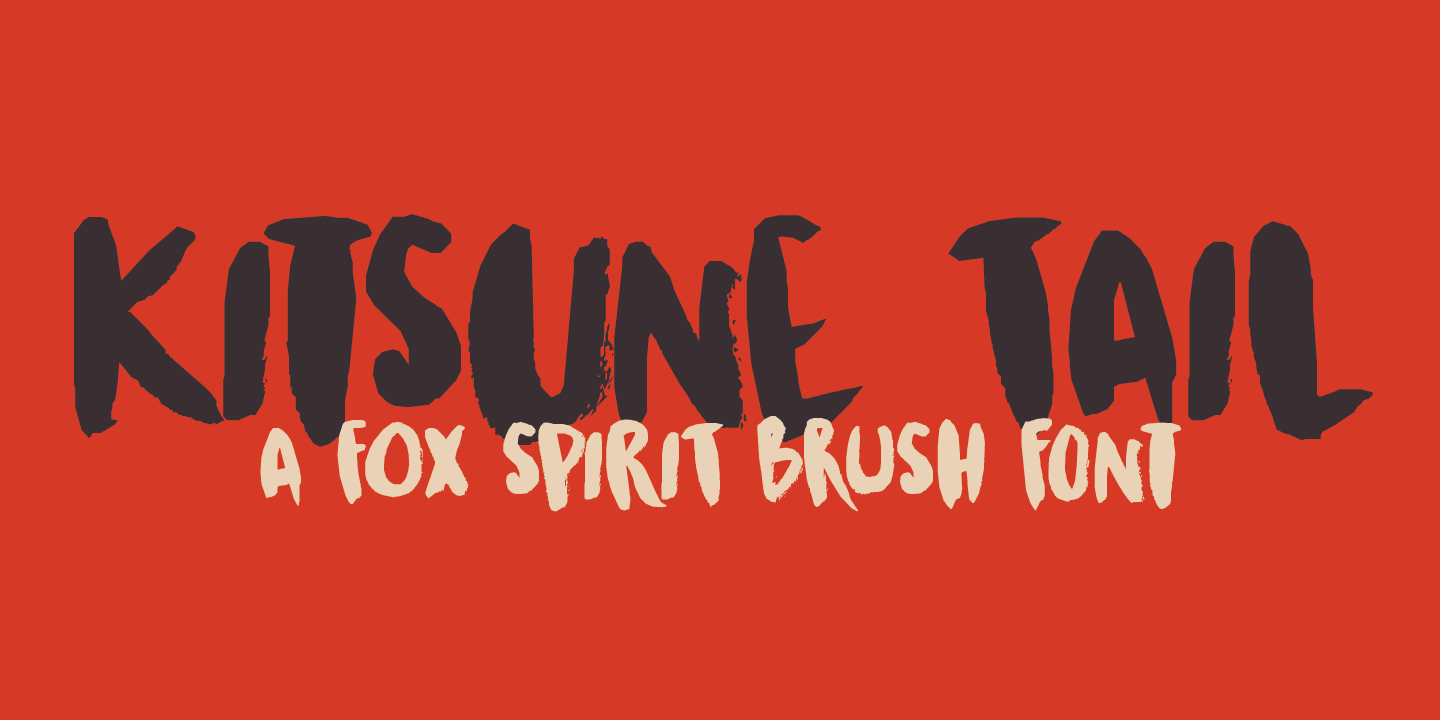
This versatile font excels in various design applications including anime posters, gaming logos, manga covers, fantasy book titles, mystical branding projects, oriental restaurant menus, tattoo designs, and spiritual artwork. Its unique character makes it perfect for projects that require an authentic Japanese-inspired aesthetic with modern typography appeal.
Kitsune Tail Font is exciting because it seamlessly blends traditional Japanese calligraphy elements with contemporary design sensibilities. The font captures the essence of fox spirits from Japanese folklore, featuring flowing strokes that mimic the graceful movement of a kitsune's tail. Each letter carries mystical energy while maintaining excellent readability across different sizes and applications.
The Kitsune Tail Font family includes multiple weights and styles: Regular, Bold, Light, and Italic variations. Some versions may also feature decorative elements, alternative characters, and special glyphs that enhance the mystical appearance. These family members provide designers with comprehensive options for creating cohesive visual hierarchies in their projects.
Whether you're designing for digital media, print materials, or branding projects, Kitsune Tail Font Free Download delivers exceptional versatility. This font transforms ordinary text into captivating visual elements that engage viewers and communicate your message with distinctive Japanese-inspired flair.